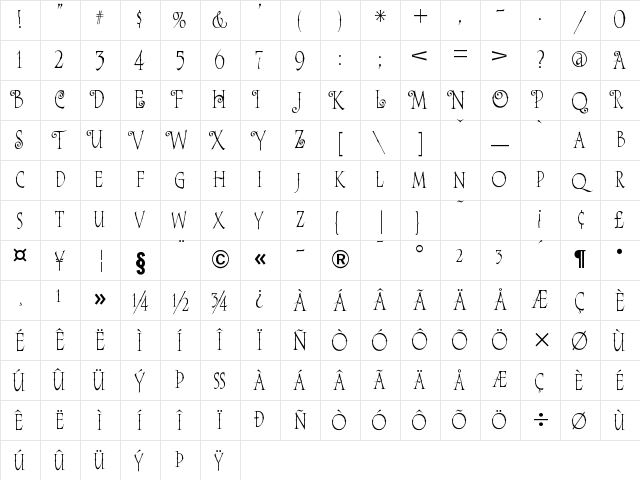
Complete A&S Sarsaparilla Alt. Ornate Regular glyph index. Displaying only characters natively supported by A&S Sarsaparilla Alt. Ornate Regular font.
A&S Sarsaparilla Alt. Ornate is a composed and adaptable typeface that performs quietly and consistently across a wide range of design contexts.